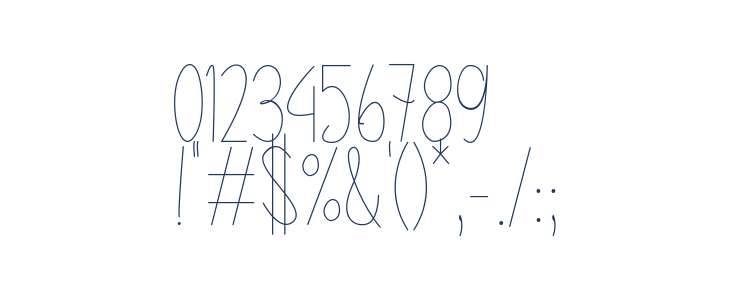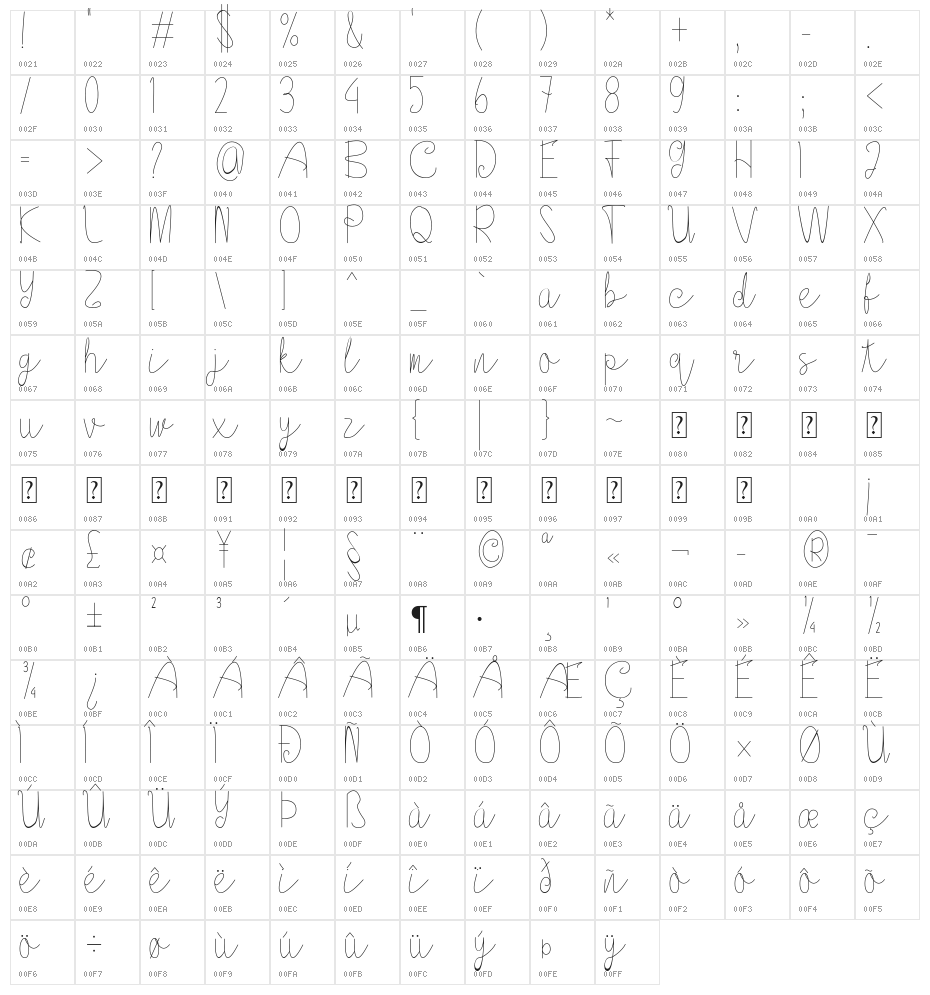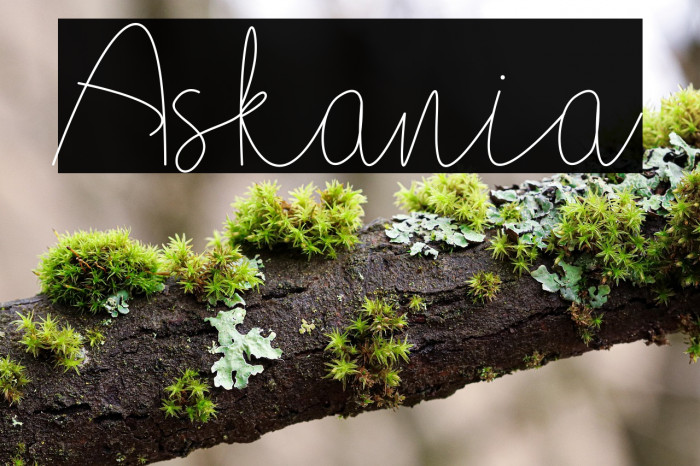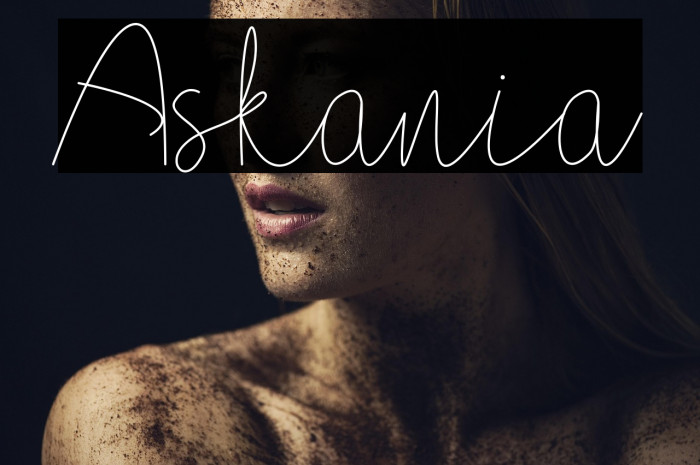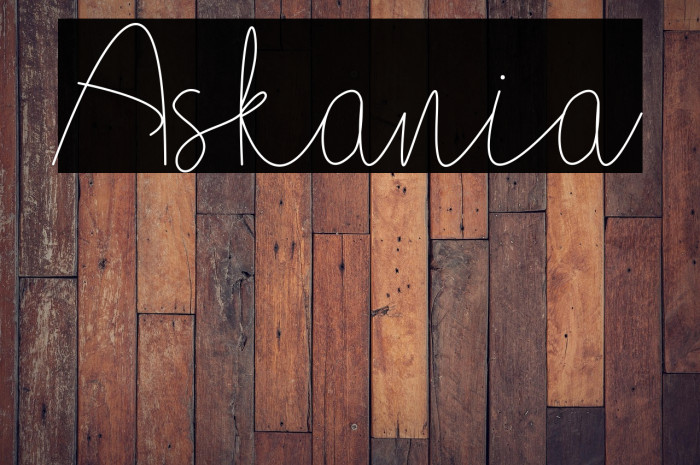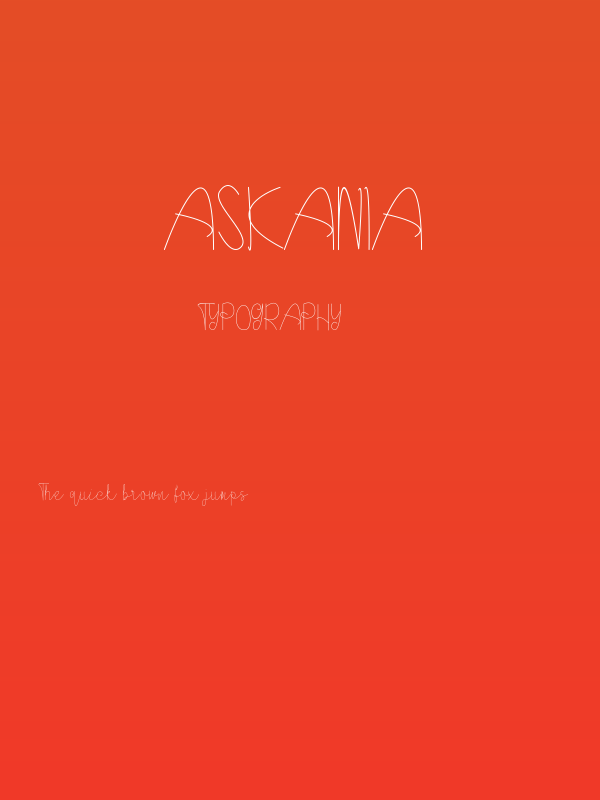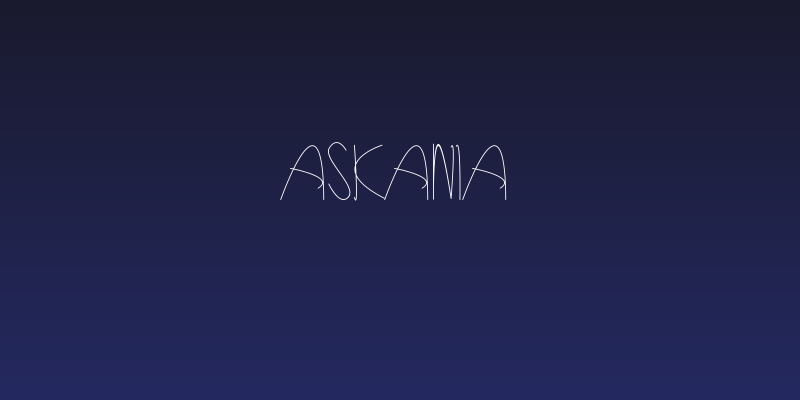
Askania Font
Askania Description
This font features a delicate and elegant script style with a handwritten appearance. The characters are thin and elongated, with a graceful flow that adds a touch of sophistication. The uppercase letters are distinct with unique flourishes, while the lowercase letters maintain a consistent and smooth connection. Numbers are styled to match the overall aesthetic, providing a cohesive look. Special characters are included, maintaining the same elegant and flowing design. This font is perfect for projects that require a personal and artistic touch.
| Overall Style | Elegant, Artistic |
| Proposed Projects | Ideal for wedding invitations, greeting cards, personal branding, and artistic projects. |